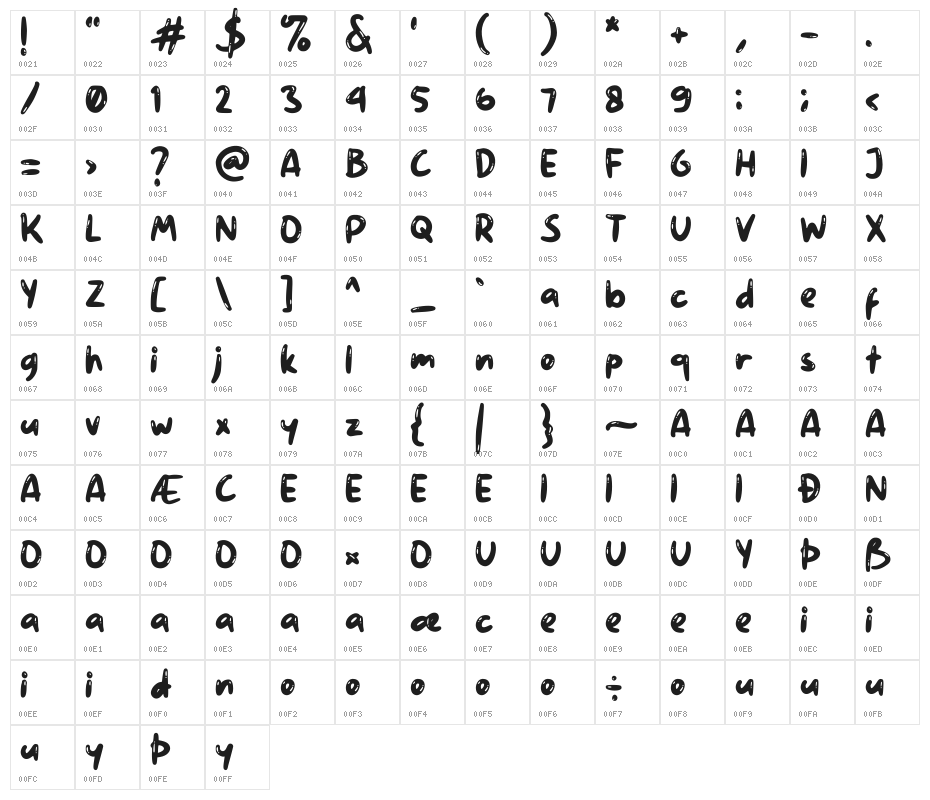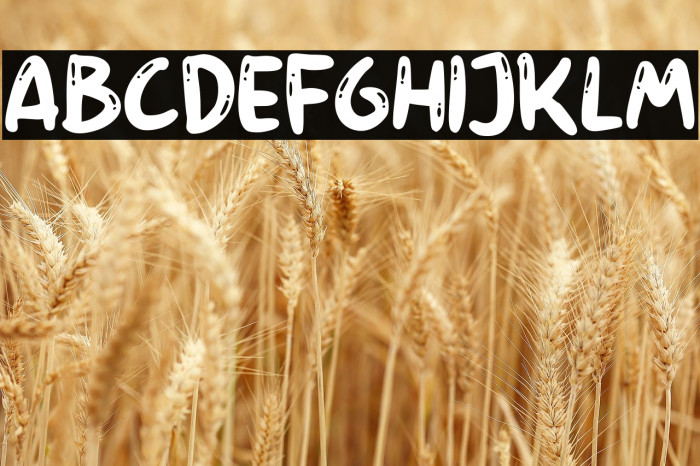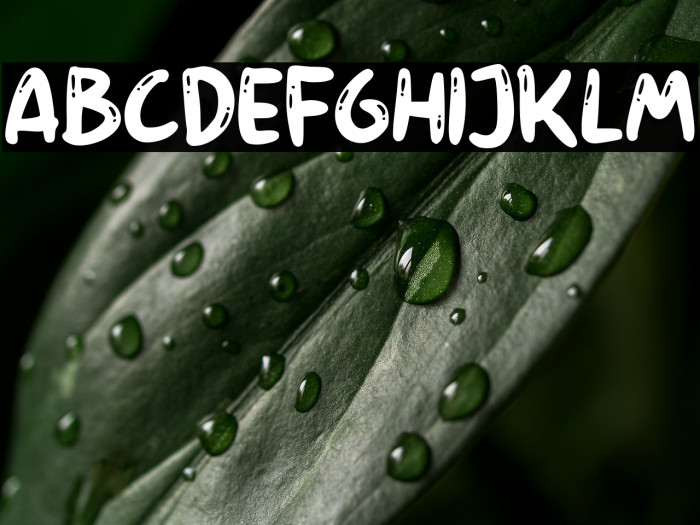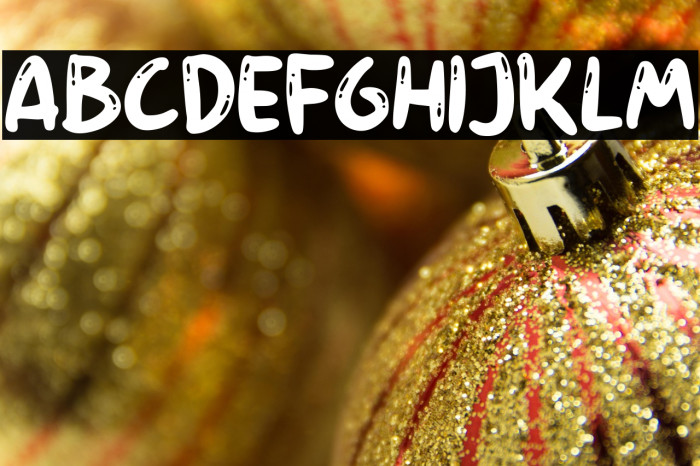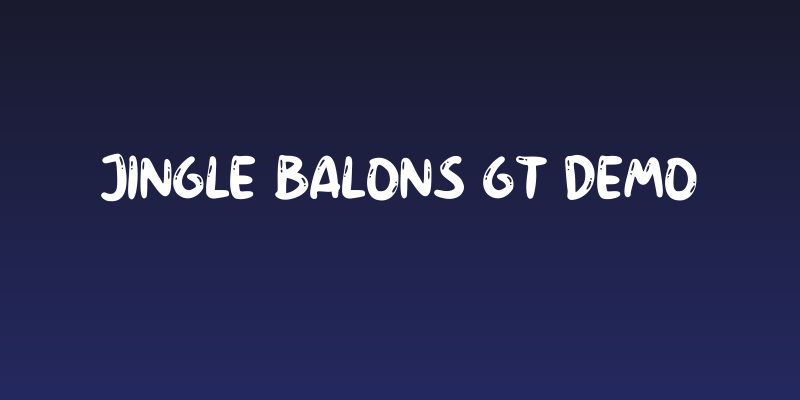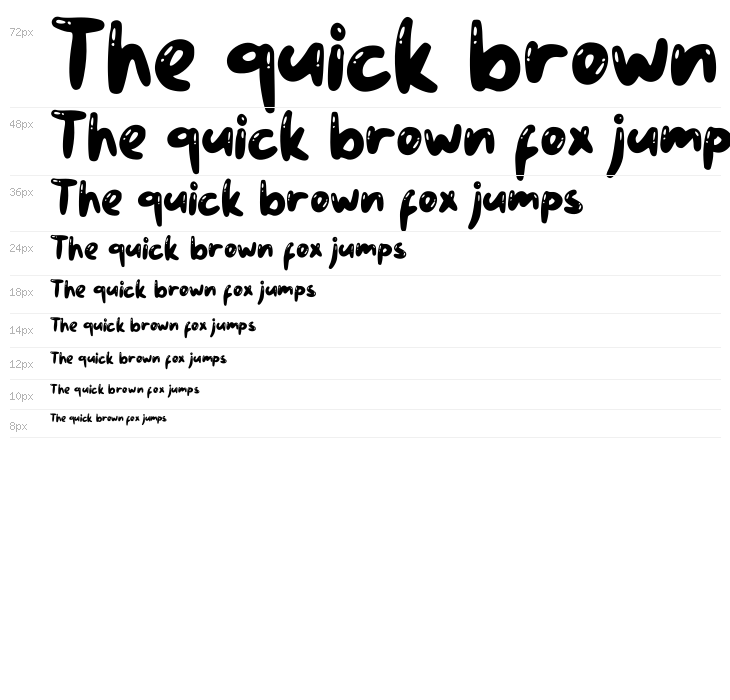
Jingle Balons GT Demo Font
Jingle Balons GT Demo Description
This playful and bold font features a bubbly, hand-drawn style that exudes a sense of fun and creativity. The characters are rounded and filled with small, whimsical details that resemble highlights or reflections, adding a dynamic and lively touch. The uppercase and lowercase letters maintain a consistent, informal style, while the numbers and special characters complement the overall aesthetic. The font's thick strokes and rounded edges make it highly legible, even at smaller sizes, while its unique design ensures it stands out in any context.
| Overall Style | Playful, Creative, Fun |